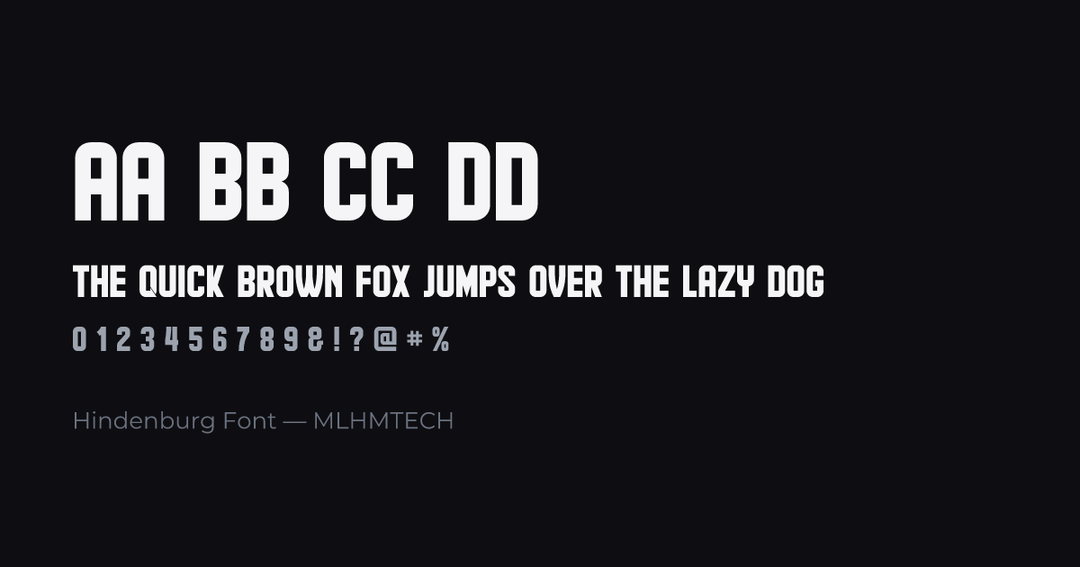
Hindenburg Font
Hindenburg is a distinctive handpicked font that adds character to any design. Perfect for headlines, logos, and creative projects.
Hindenburg is a unique typeface that stands out with its bold and expressive letterforms. Handpicked for its versatility, it works well in both digital and print designs. Whether you're creating a logo, poster, or social media graphic, Hindenburg brings a touch of personality.